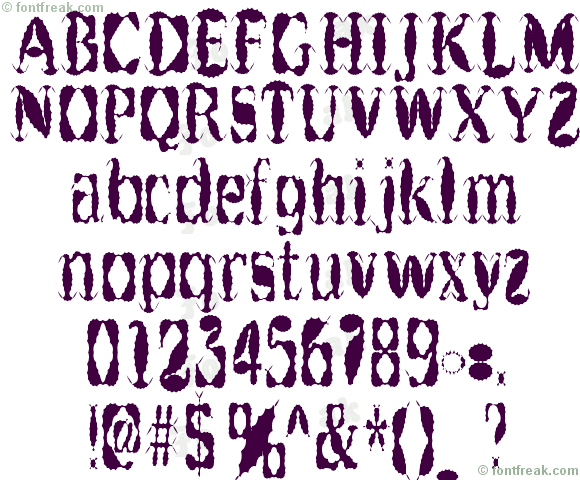
Get Burnt
Get Burnt by Omega Font Labs is a distinctive display font that captures attention with its unique, artistic flair. This shareware typeface, developed in 1997, offers a rugged, hand-crafted aesthetic that makes it perfect for a variety of creative projects. The font features an irregular stroke weight and a high level of contrast, which adds an edgy, dynamic quality to its overall appearance. The spacing is thoughtfully designed to enhance readability while maintaining a bold presence, making it suitable for both headlines and decorative text.
The visual characteristics of the Get Burnt font include sharp, jagged edges that evoke a sense of spontaneity and creativity. This makes it an excellent choice for use cases such as movie posters where a dramatic flair is essential, restaurant menus that aim to create a unique dining experience, and event flyers that need to stand out in a crowded space. Additionally, it can be effectively used in branding materials for small businesses that want to convey a distinctive personality or artistic vibe.
Targeting graphic designers, small business owners, and content creators, Get Burnt offers versatility that can elevate any project. Whether you’re looking to design eye-catching promotional materials or unique merchandise, this font provides the perfect touch of character and style.
What truly makes the Get Burnt font stand out is its ability to combine artistry with functionality. Its rugged charm and high visibility make it not just a typeface, but a statement piece that can transform ordinary text into something extraordinary. For those interested in adding a creative edge to their designs, the Get Burnt font free download presents a fantastic opportunity to explore this unique typeface.